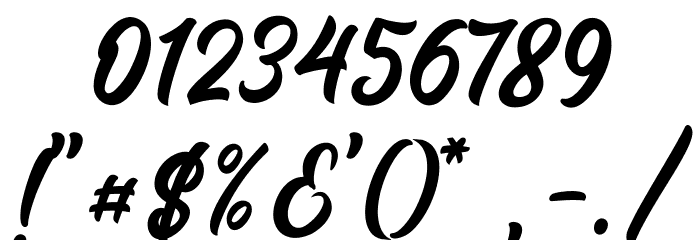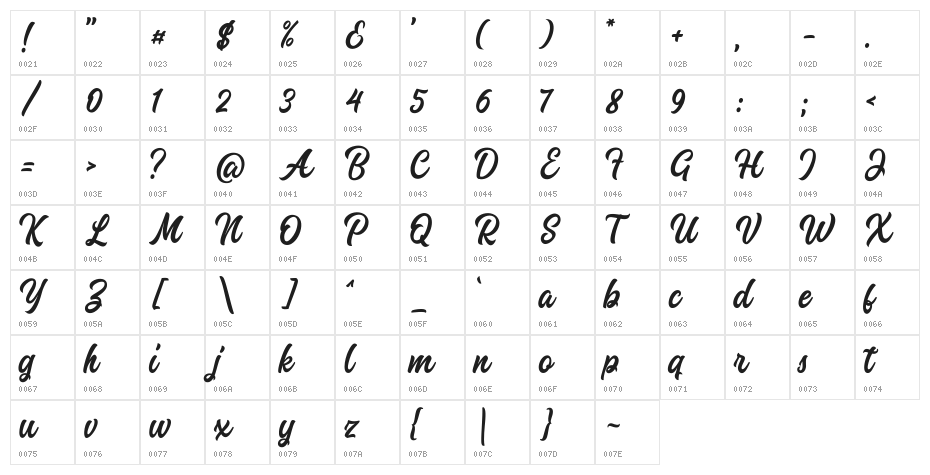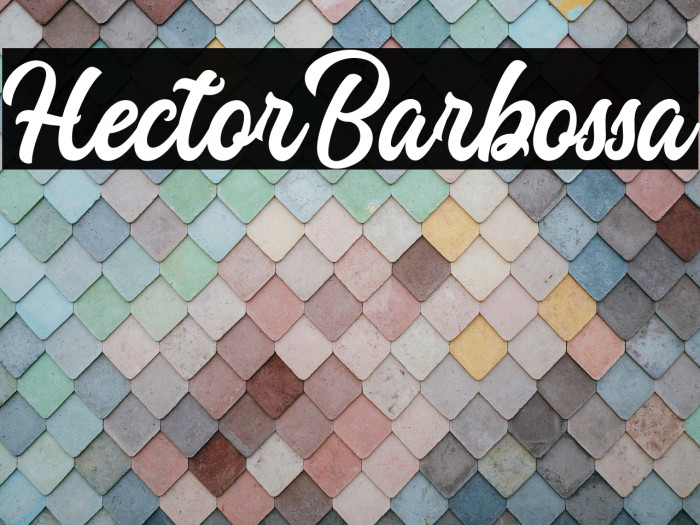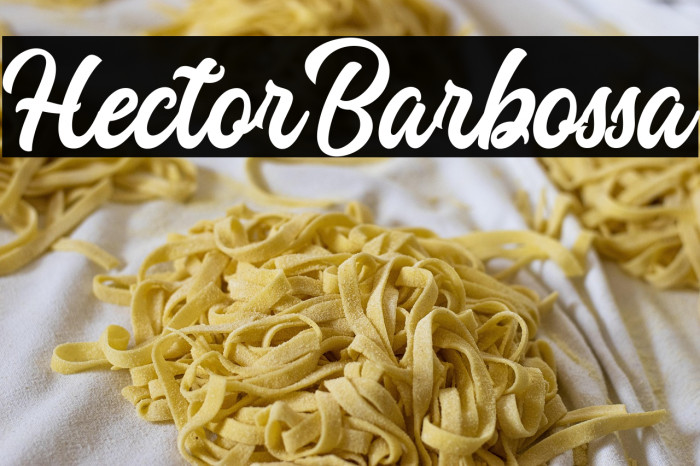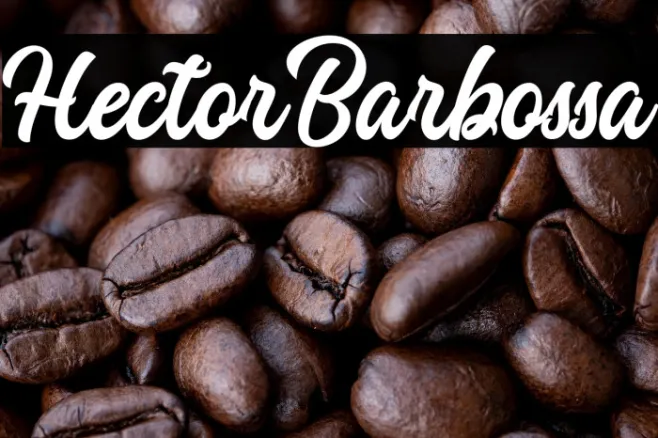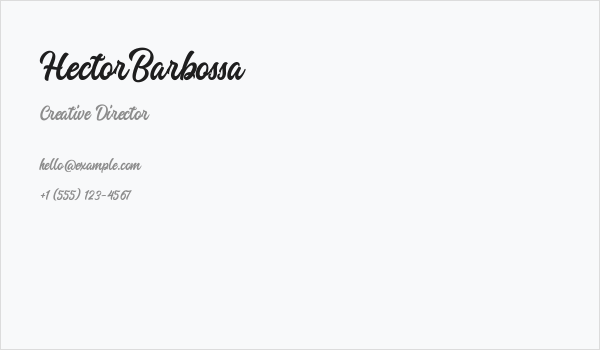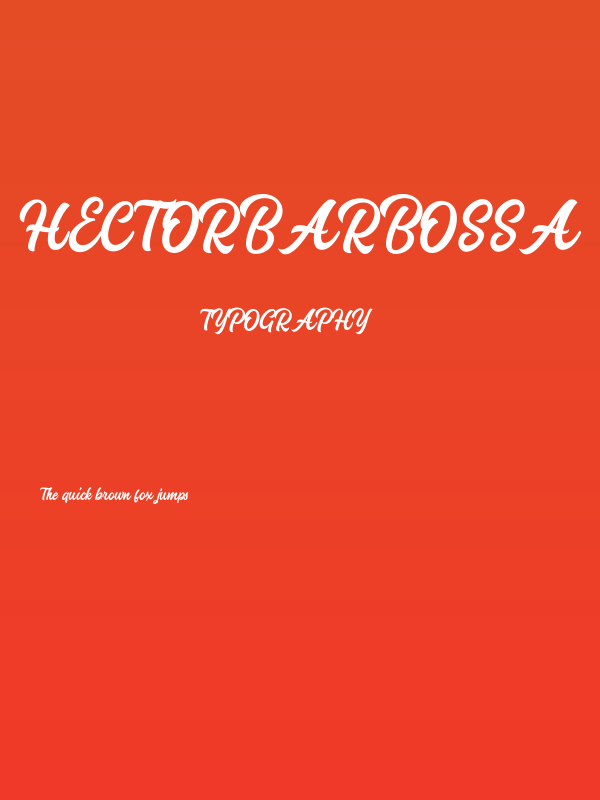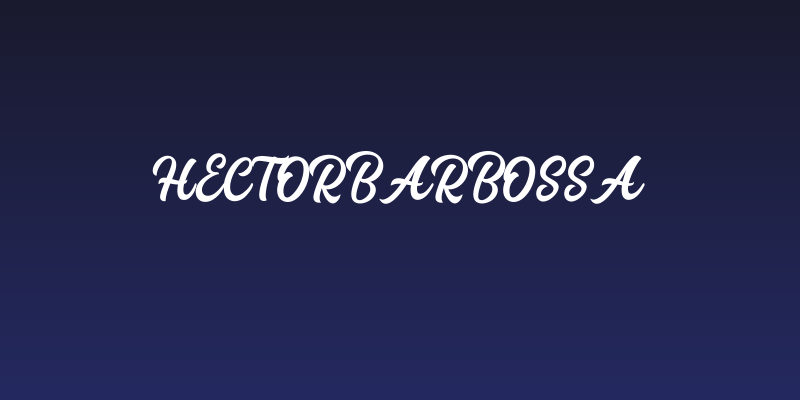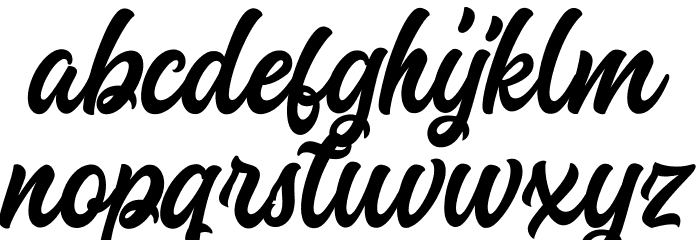
HectorBarbossa Font
HectorBarbossa Description
This font features a bold and flowing script style, characterized by its elegant and dynamic curves. The letters are interconnected, giving it a cohesive and fluid appearance. The uppercase letters are slightly larger and more ornate, while the lowercase letters maintain a consistent rhythm and balance. The numerals and special characters are designed to match the overall aesthetic, with a playful yet sophisticated touch. This font exudes a sense of elegance and creativity, making it suitable for a variety of design applications.
| Proposed Projects | Ideal for wedding invitations, branding, logo design, and elegant packaging. |